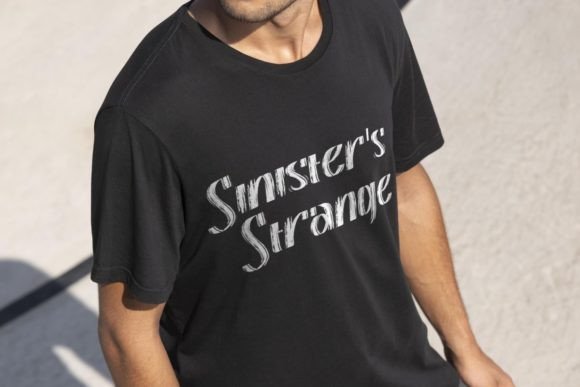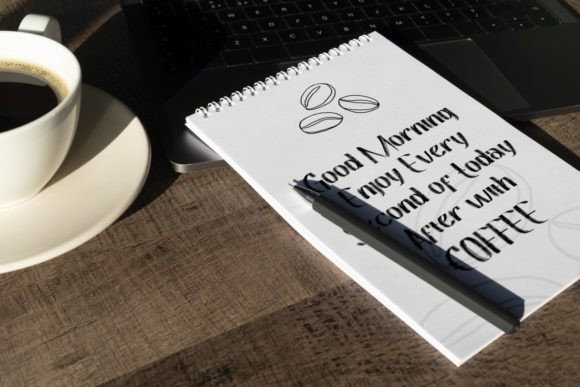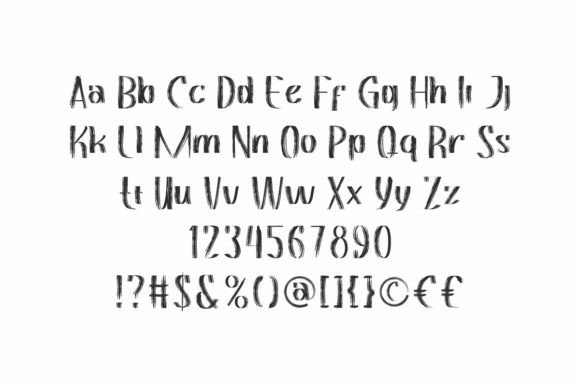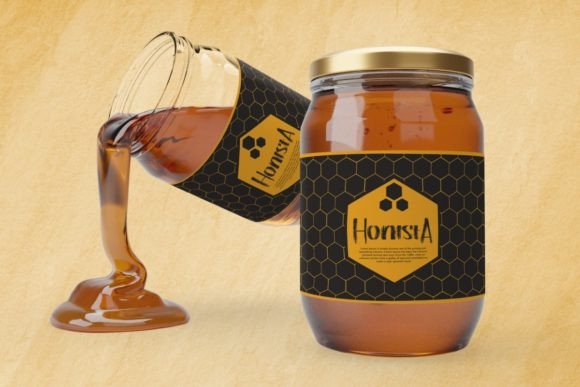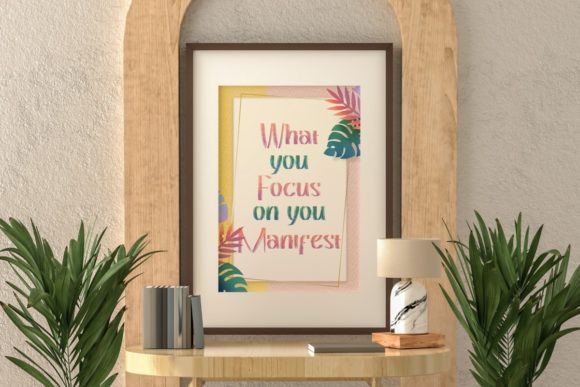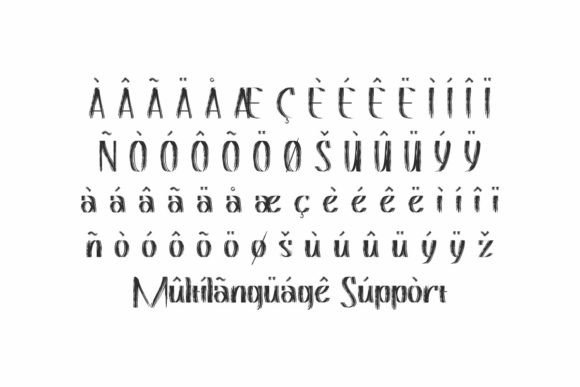
Introducing Cozy Rustic Font: The Perfect Addition to Your Design Toolbox
Are you looking for a font that adds a touch of rustic charm to your designs? Look no further than Cozy Rustic Font, an authentic brush font with a rough texture created by NihStudio. This versatile font is suitable for a wide range of industries, including agriculture, apparel, café, carpenter, craft, farming, game, honey, movie, publishing, and many more.
What Makes Cozy Rustic Font Special?
Cozy Rustic Font features a unique brush-like texture, reminiscent of wood grain. This font is perfect for creating designs that require a classic, rustic touch. The font comes with a full set of uppercase and lowercase basic characters, numbers, punctuation, and symbols, making it easy to use for a variety of design projects. Additionally, it supports multilingual characters, ensuring that you can use it for designs that require text in different languages.
Use Cozy Rustic Font for a Variety of Design Projects
Cozy Rustic Font is perfect for a wide range of design projects, including:
- Billboard design
- Logo creation
- Custom design projects
- Label design
- Printed materials
- Product packaging
PUA Encode Characters for Easy Access
Cozy Rustic Font features PUA (Private Use Area) encode characters, which means you can access all the glyphs and other characters easily, without the need for additional design software. This feature makes it easy to customize your designs and add unique touches to your text.
Why Choose Cozy Rustic Font?
Cozy Rustic Font is an excellent choice for designers and crafters who want to add a touch of rustic charm to their designs. Here are just a few reasons why:
- Unique brush-like texture
- Versatile and suitable for a wide range of industries
- Easy to use and compatible with popular design software
- PUA encode characters for easy access
- Multilingual character support
Cozy Rustic Font is a versatile and unique font that adds a touch of rustic charm to any design project. With its brush-like texture, compatibility with popular design software, and PUA encode characters, it’s an excellent choice for designers and crafters. Whether you’re creating a logo, billboard, or product packaging, Cozy Rustic Font is sure to become a staple in your design toolbox.
Get Ready to Add a Touch of Rustic Charm to Your Designs